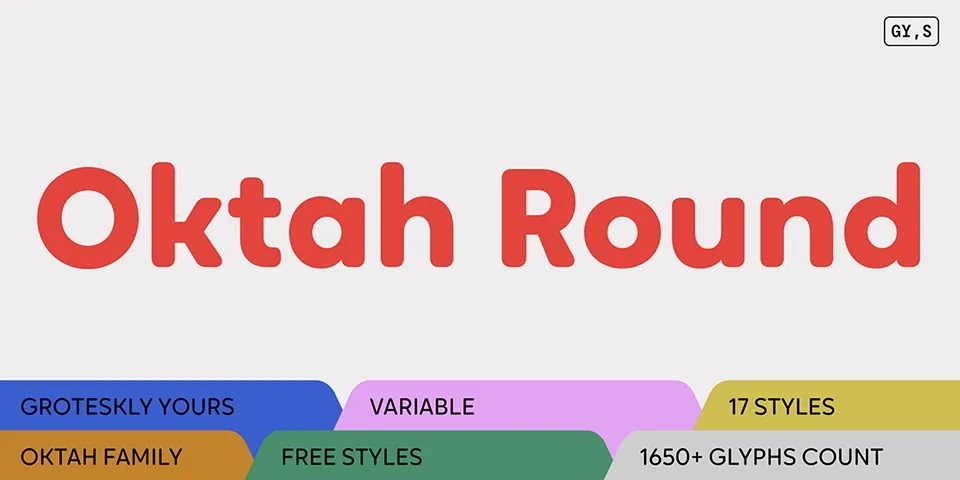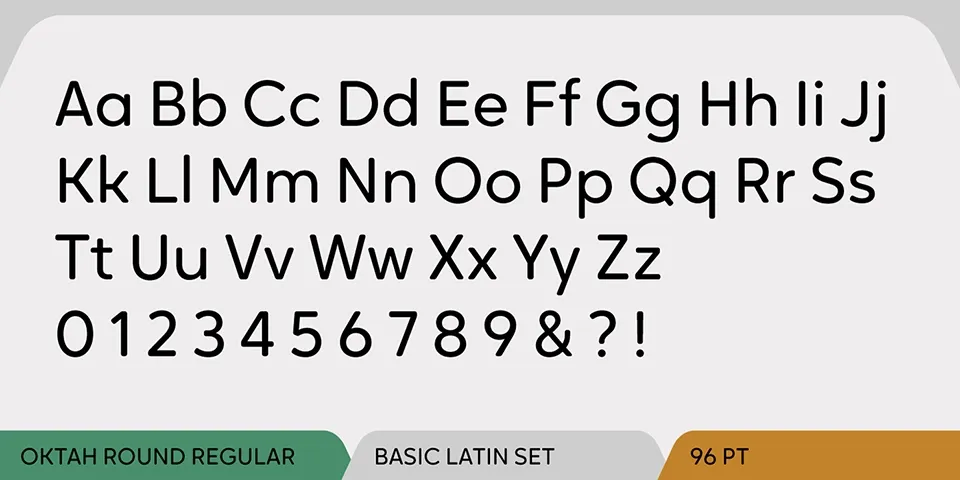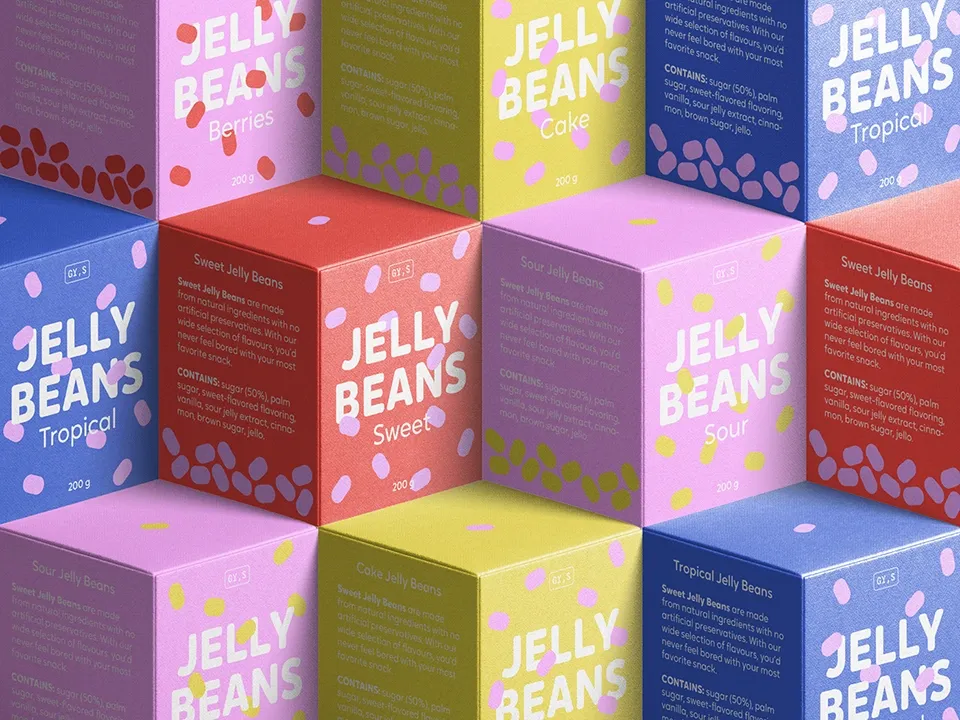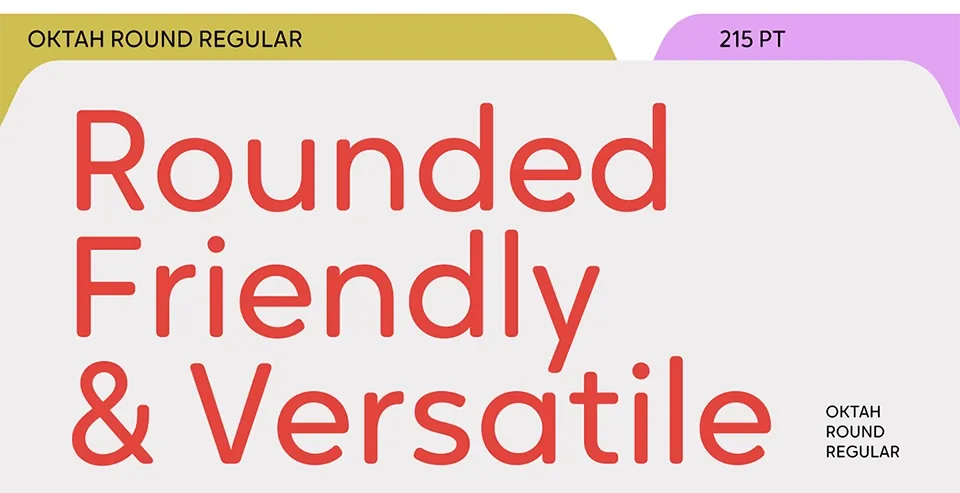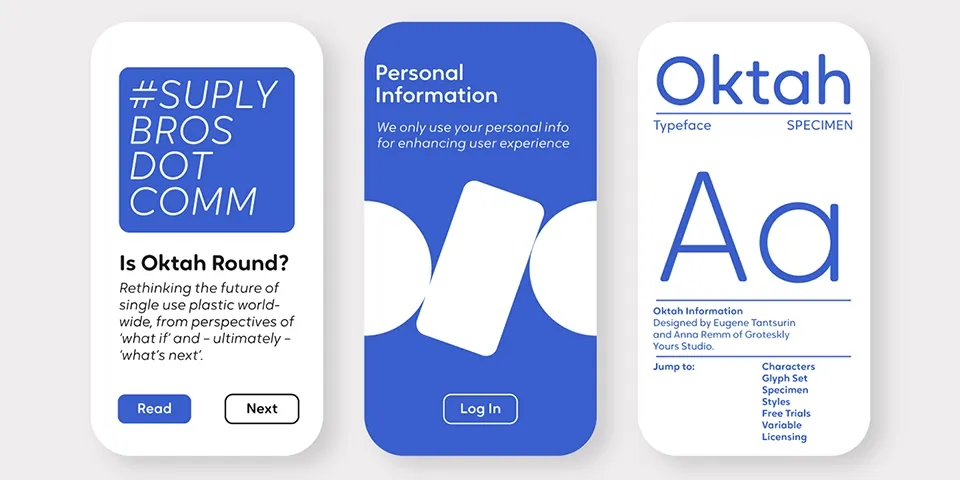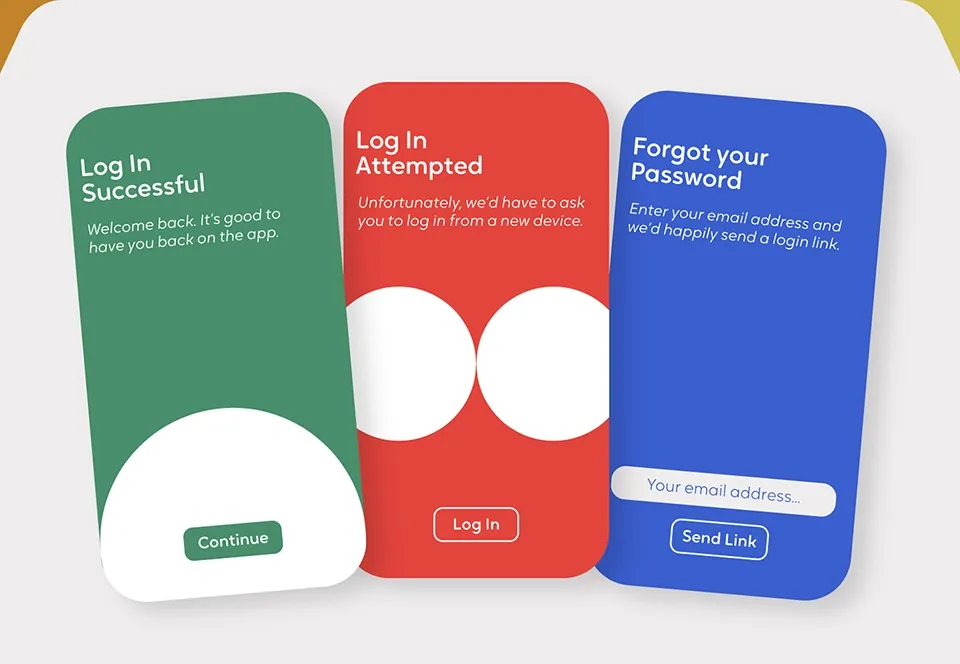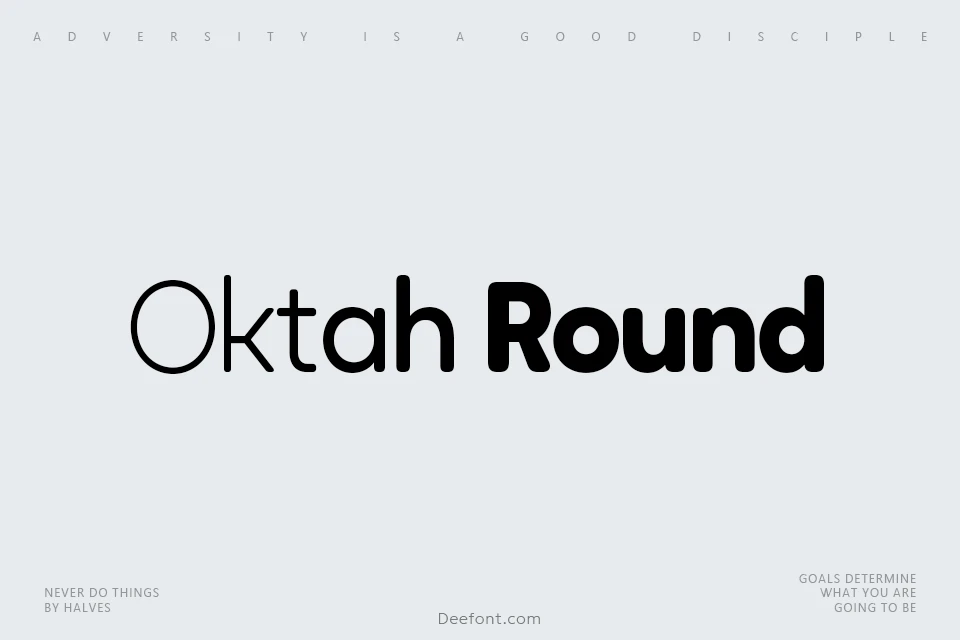
Oktah Round Font Family
Oktah Round Font Family is designed by Eugene Tantsurin and Anna Remm of Groteskly Yours Studio. This modern geometric sans-serif is the rounded version of Oktah Neue, offering a soft, friendly, and warm aesthetic. It blends a human touch with high functionality, featuring smooth rounded corners and clean lines. The family includes 16 static styles from Thin to Black, plus a versatile variable font with adjustable weight and slant. With over 1600 characters per font, extensive OpenType features, and support for 200+ Latin and Cyrillic languages, Oktah Round is ideal for logos, branding, and web design.